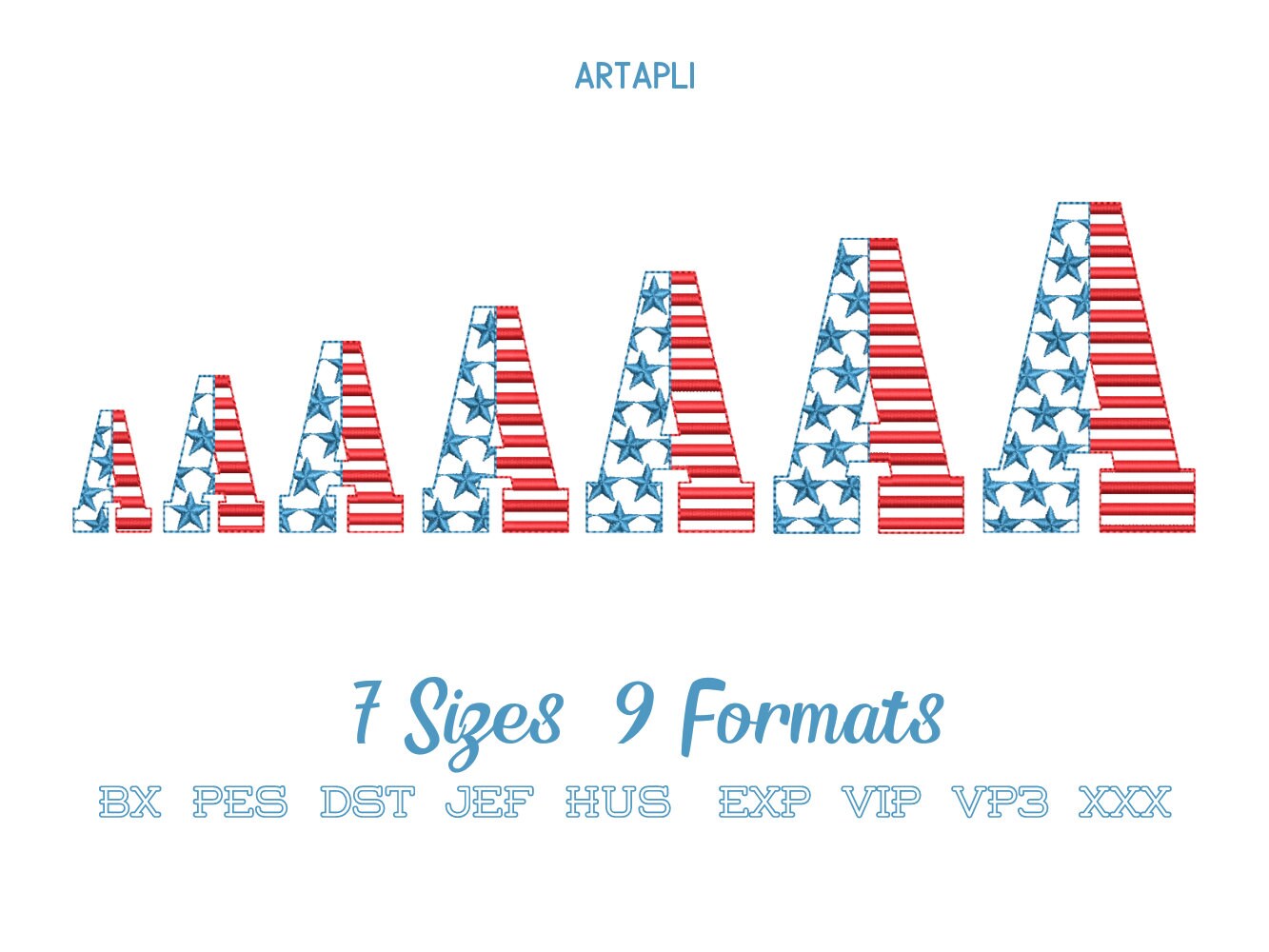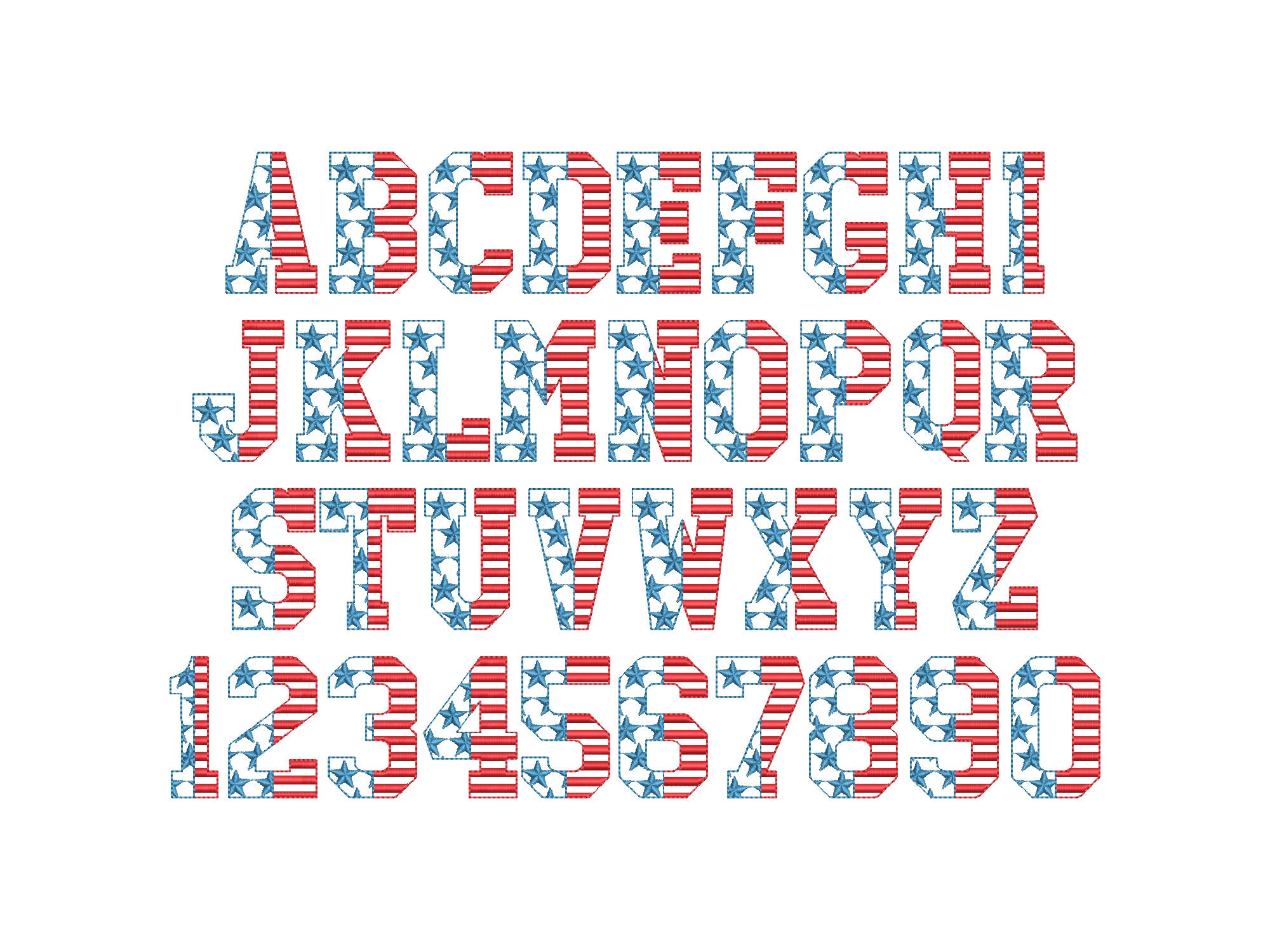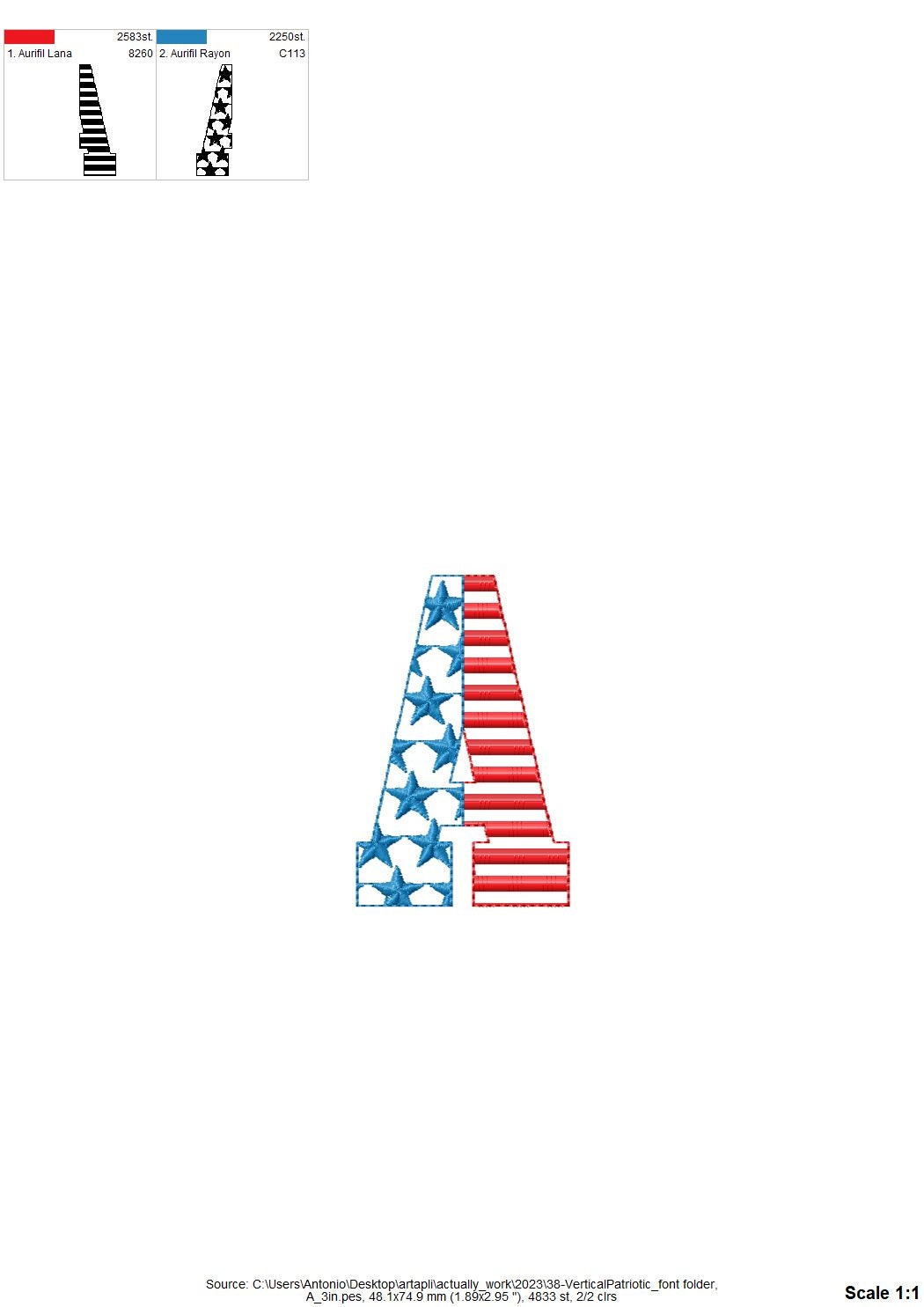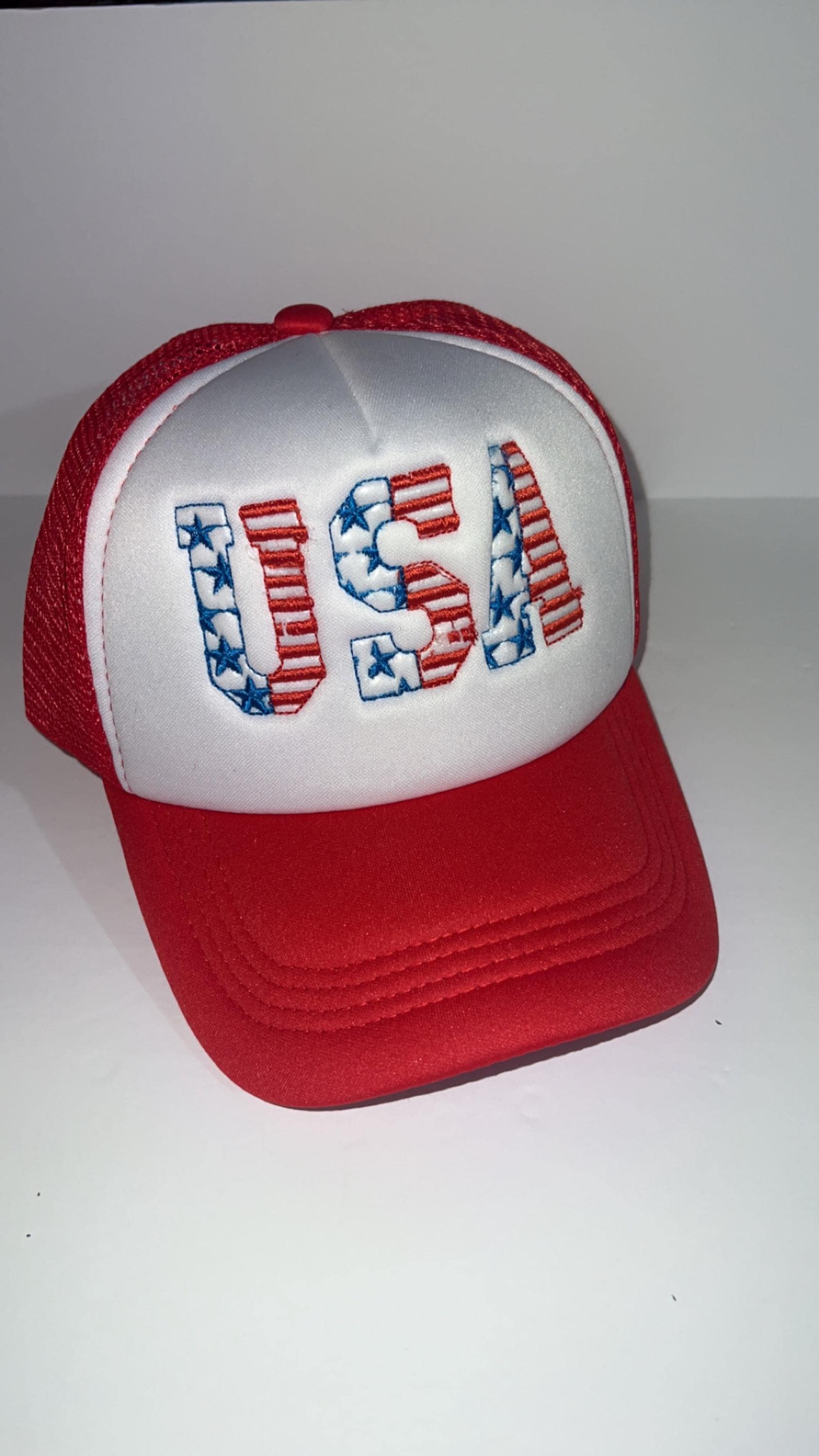
Patriotic block Font Stars and Stripes alphabet light stitch machine embroidery designs monogram letters & numbers 4th July Independence Day
This is a light stitch font. The background fabric looks through. Stunning effect!
Uppercase A-Z and numbers 0-9.